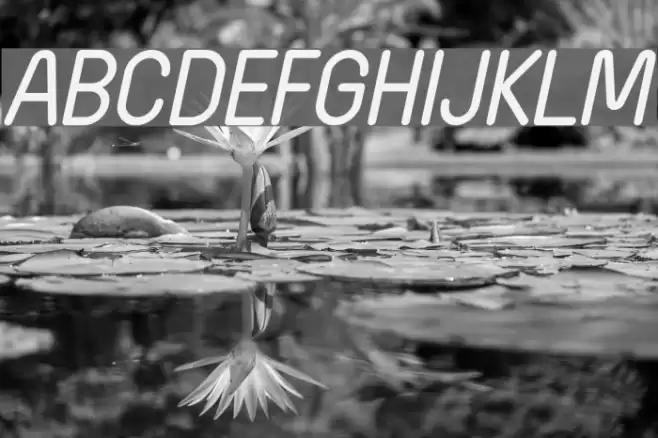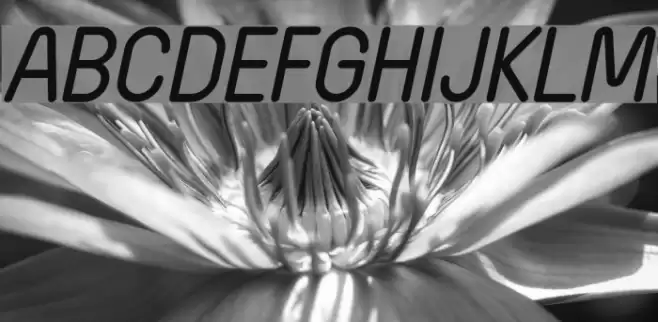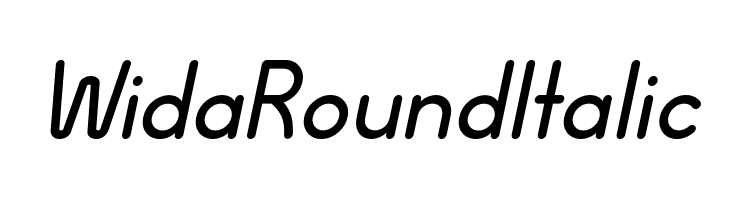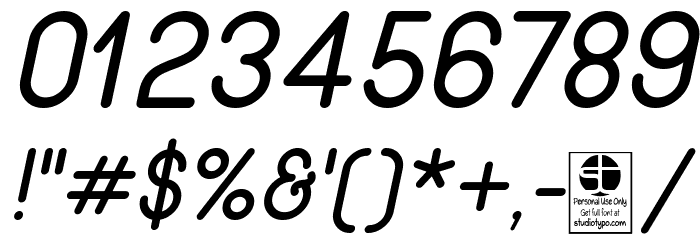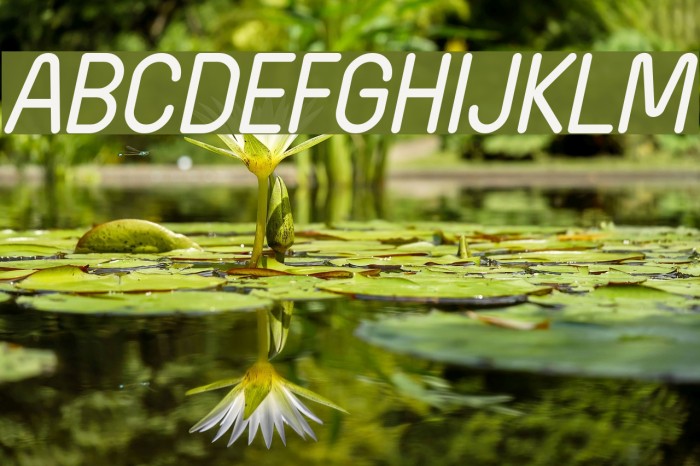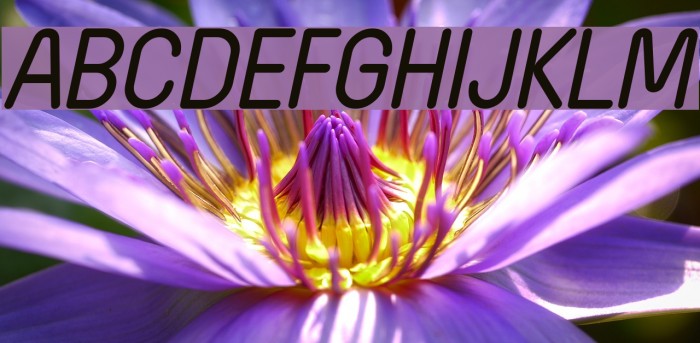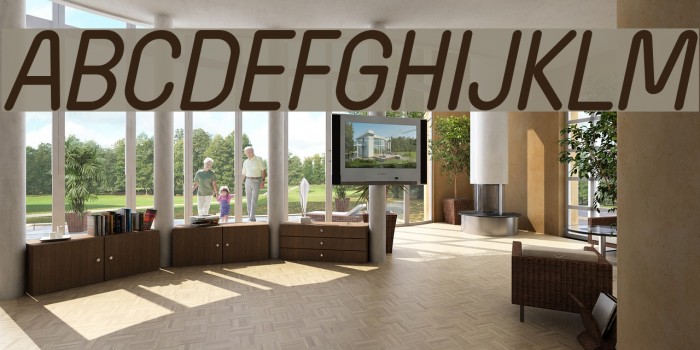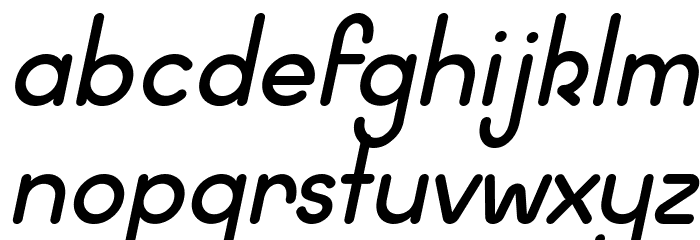
Wida Round Italic Font
Wida Round Italic Description
This font features a smooth, rounded design with a consistent italic slant, giving it a friendly and approachable appearance. The letters are evenly spaced, with a slight tilt that adds a sense of motion and fluidity. The rounded edges soften the overall look, making it suitable for casual and informal settings. The numerals and special characters maintain the same rounded and italicized style, ensuring uniformity across all text elements. This font's clean and modern aesthetic makes it versatile for various design applications.
A rounded, italic font with a friendly and modern appearance from Uncategorized fonts.
- Proposed Projects: Ideal for branding, advertising, and digital content that requires a casual and approachable tone.
- Use Case: Headlines, Logos, Informal Text